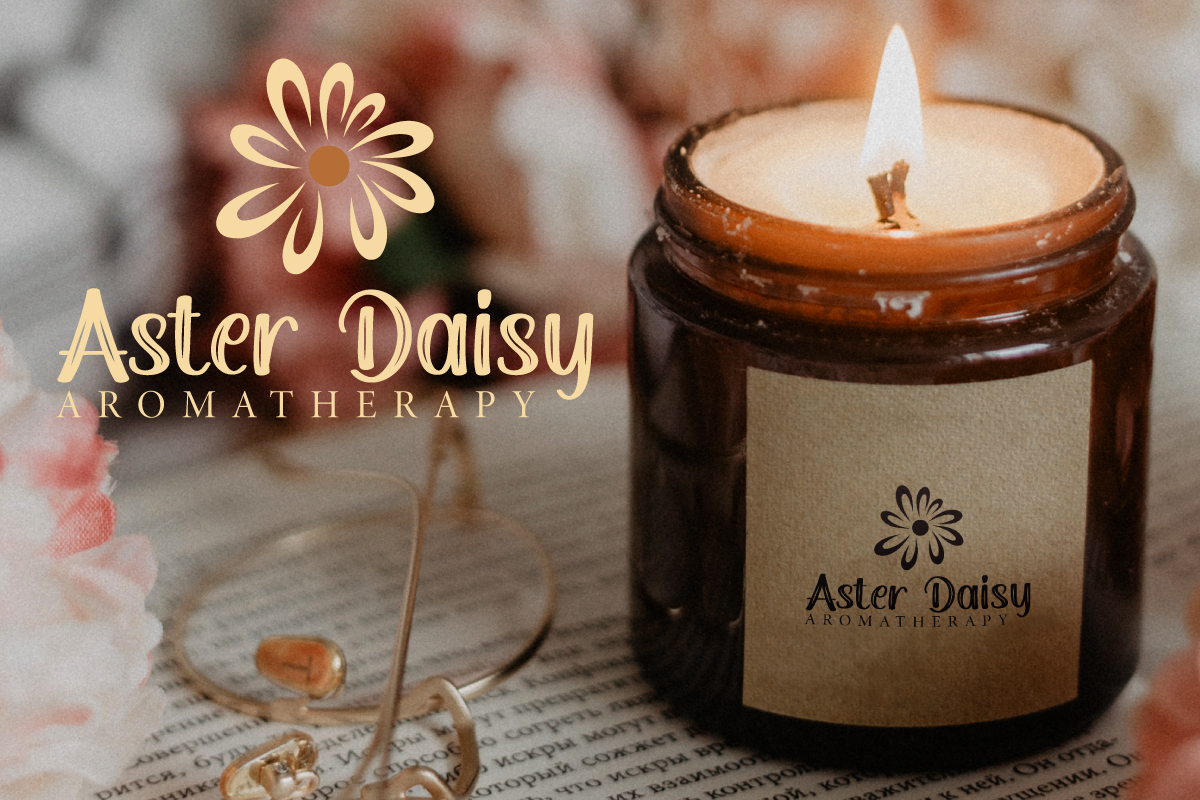
Aster Daisy Font
Aster Daisy Brush Font
This is a unique display, fancy font with cartoon style brush selection, with strokes on each letter. This font has girly and cartoon style that looks stunning in just about every context. Use it for logos, print, ,headline, body text, and more! Inspired from games tittle and spaceship news, Aster Daisy Font includes full set of Uppercase and Lowercase Basic Characters, Numerals and Punctuation. Aster Daisy will be great for Use it for any project that needs a unique, special look! Perfect for branding, labels, headline, posters, websites and so much more!